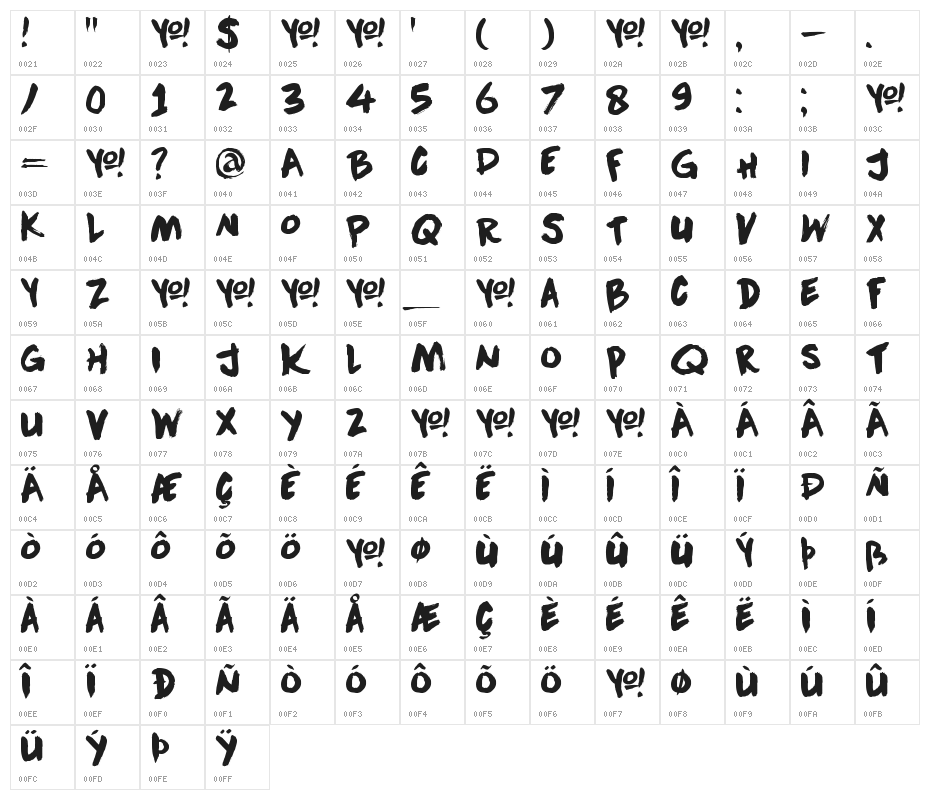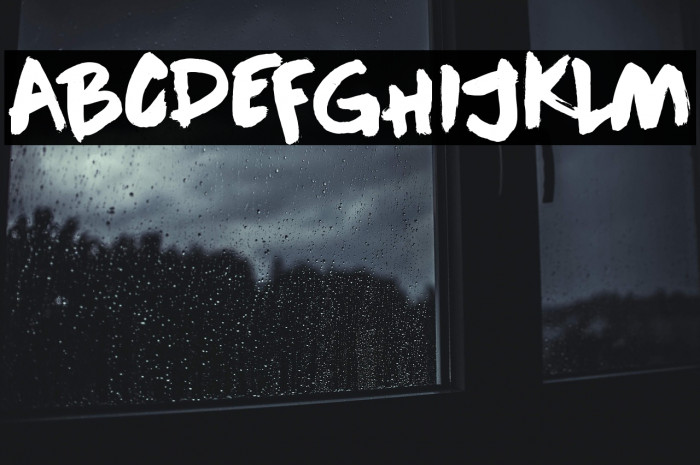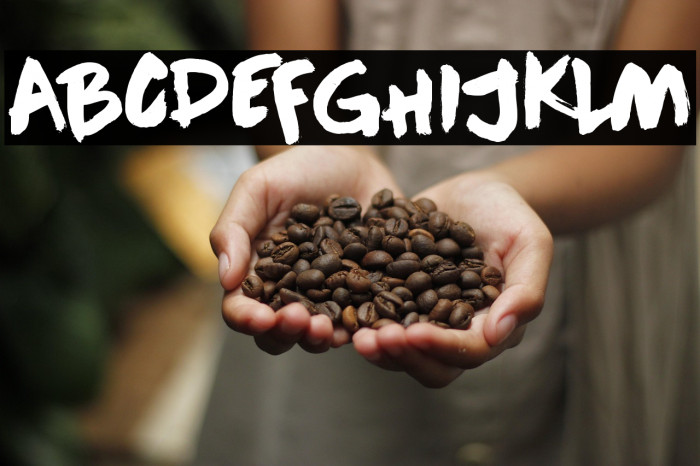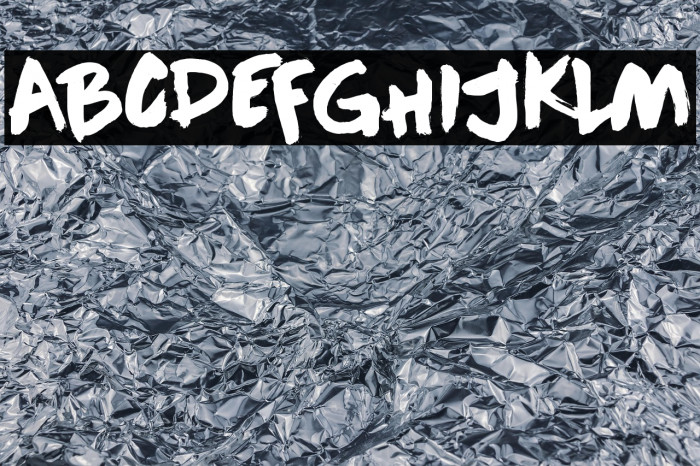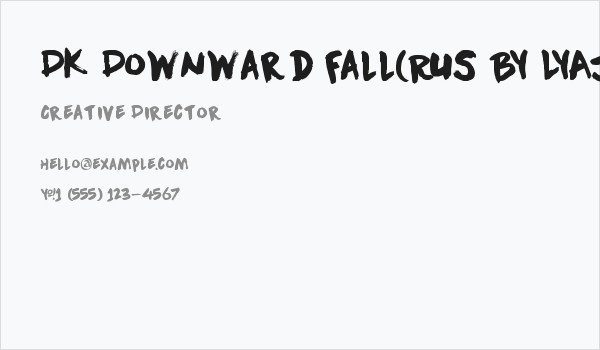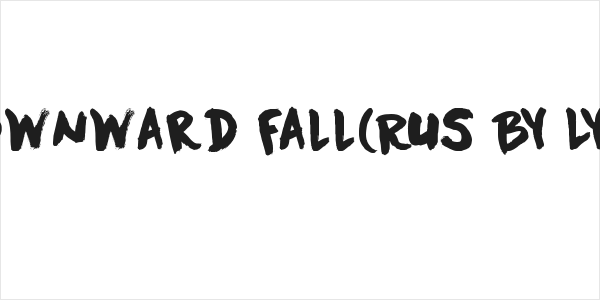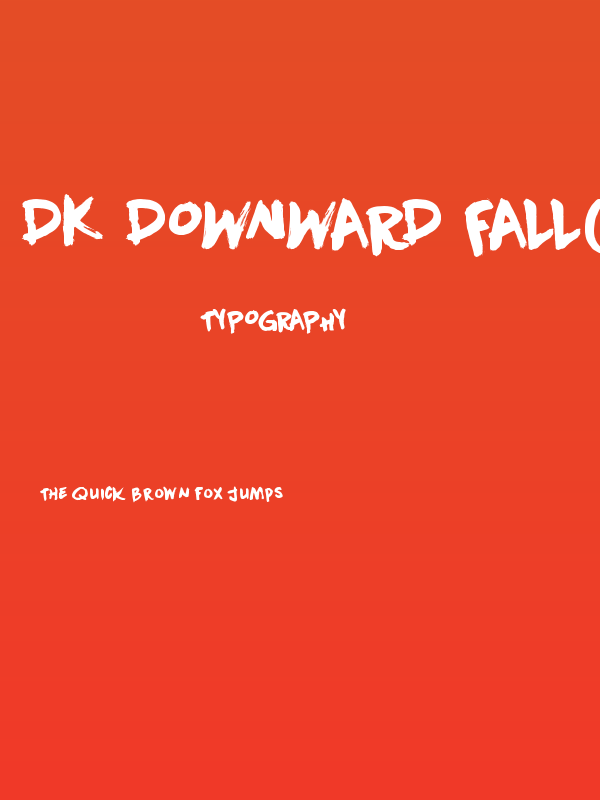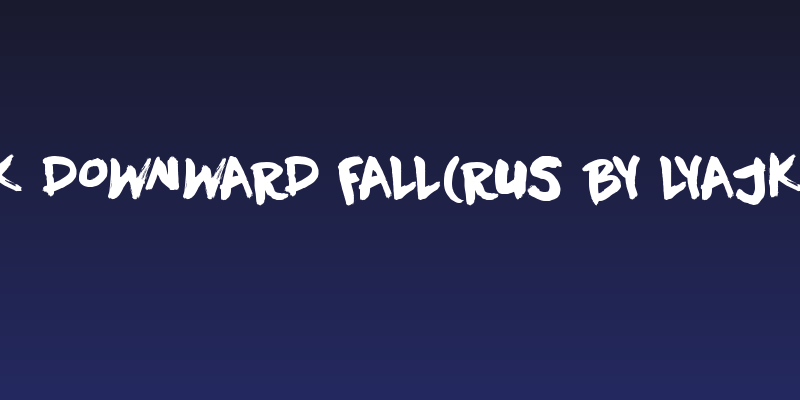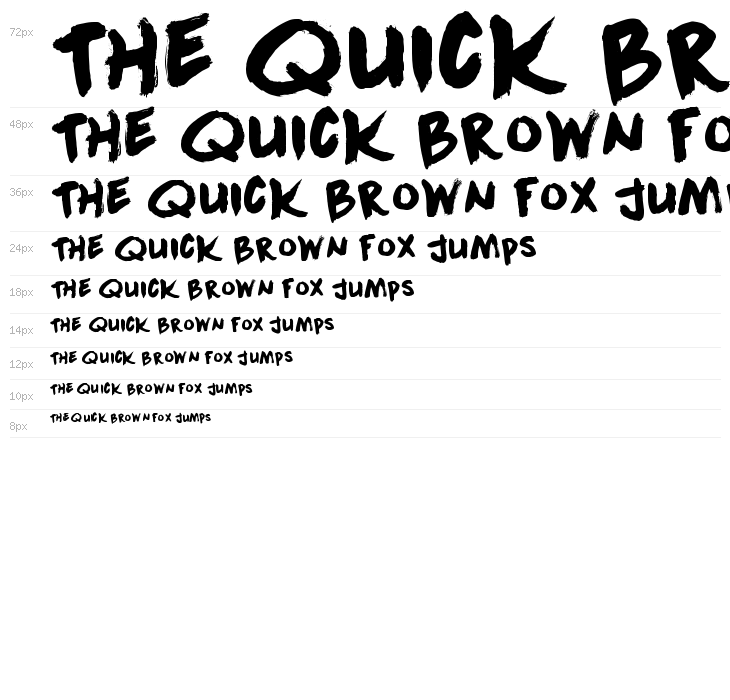
DK Downward Fall(RUS BY LYAJKA) Font
DK Downward Fall(RUS BY LYAJKA) Description
This font features a bold, expressive style with a hand-painted appearance. The characters are irregular and dynamic, giving a sense of movement and energy. The strokes are thick and uneven, with a brush-like texture that adds a raw, artistic feel. The uppercase and lowercase letters maintain a consistent style, while the numbers and special characters complement the overall aesthetic. This font is ideal for projects that require a bold, impactful look, such as posters, album covers, or branding materials.
| Proposed Projects | Perfect for posters, album covers, branding, and any project needing a bold, artistic touch. |